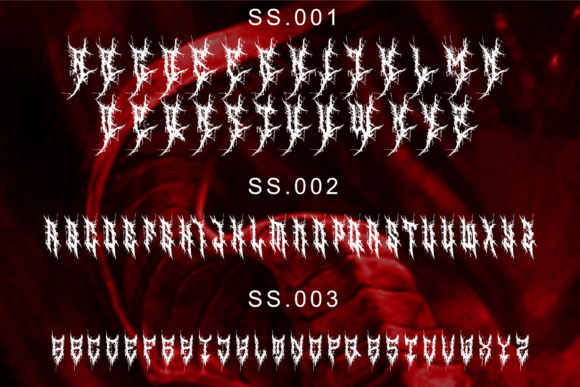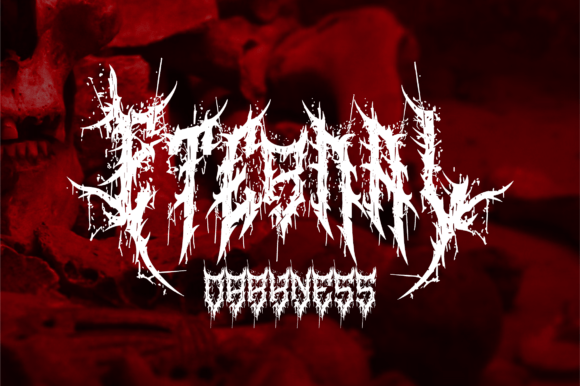
Rustic Typeface
Rustic Typeface, a brutal font display designed for the raw intensity of death metal aesthetics. With its all-caps design and distinctive alternate glyphs for both back and center characters, Rustic brings forth a primal energy perfect for album covers, posters, music events, stickers, merchandise, video titles, film titles, and beyond.